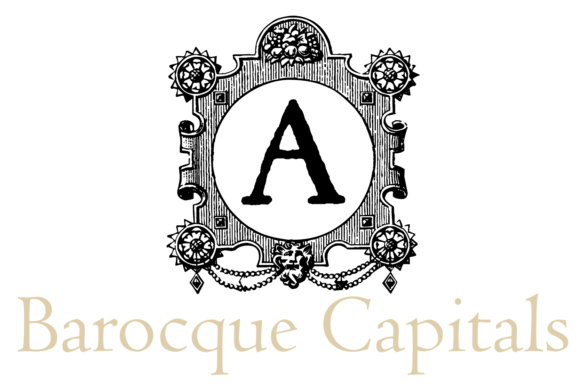
Unleashing the Beauty of Barocque Capitals Font
Have you ever found yourself staring at a blank page, struggling to bring your creative vision to life? The blank canvas can be daunting, but it’s also a chance to break free from the ordinary and create something truly extraordinary. For designers, this moment is a calling to experiment with new fonts, and one that stands out is the Barocque Capitals Font.
This ornate alphabet is a masterpiece of design, with its intricate baroque capitals adding a touch of elegance to any project. Whether you’re creating a luxury brand identity or a vintage-inspired advertisement, Barocque Capitals Font is the perfect choice to elevate your design game. With its unique blend of history and sophistication, this font is a valuable asset for any designer looking to add a touch of sophistication to their work.
Barocque Capitals Font Key Features
- Character Count: The font contains 100 characters, including uppercase and lowercase letters, numbers, and special characters, making it a versatile choice for various design projects.
- Unique Characteristics: The Barocque Capitals Font features intricate, hand-drawn designs with ornate details, making it a perfect choice for projects that require a touch of elegance and sophistication.
- Font Style: The Barocque Capitals Font is a serif font with a classic, vintage feel, making it a great choice for projects that require a sense of history and tradition.
Designer Review: Baroque Capitals Font
As a designer, I was excited to dive into the Baroque Capitals font. Here are my honest thoughts.
- Unique aesthetic: The font has a distinctive, ornate look that’s perfect for adding a touch of elegance to luxury or historical-inspired designs.
- High-quality rendering: The font is well-rendered, with smooth lines and subtle curves that give it a premium feel.
- Good legibility: Despite its ornate nature, the font remains legible even at smaller font sizes, making it suitable for body text.
- Limited versatility: The font’s ornate style may not be suitable for all types of projects, such as modern or minimalist designs.
- No lowercase: The font only includes uppercase letters, which may limit its use in certain contexts.
- Some character limitations: While the font includes a wide range of characters, there are some missing or poorly rendered glyphs that may cause issues in certain languages or applications.
Overall, I think the Baroque Capitals font is a great choice for designers looking to add a touch of luxury or historical flair to their projects. While it has some limitations, its unique aesthetic and high-quality rendering make it a valuable addition to any font collection.
Getting the Most Out of Baroque Capitals Font
To get the most out of Baroque Capitals Font, consider the following tips:
– Use the font for titles and headings to add a touch of elegance.
– Pair the font with a modern sans-serif font for contrast.
– Experiment with different font sizes and colors to create visual interest.
Common use cases for Baroque Capitals Font include:
– Designing formal invitations and event materials.
– Creating luxury brand identities.
– Adding a touch of sophistication to digital and print materials.